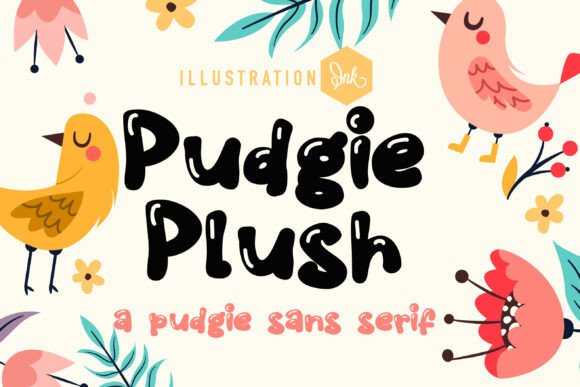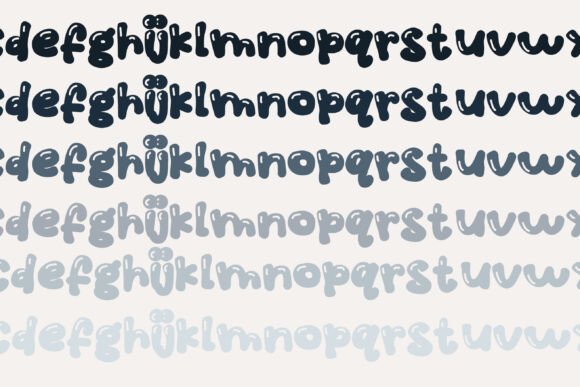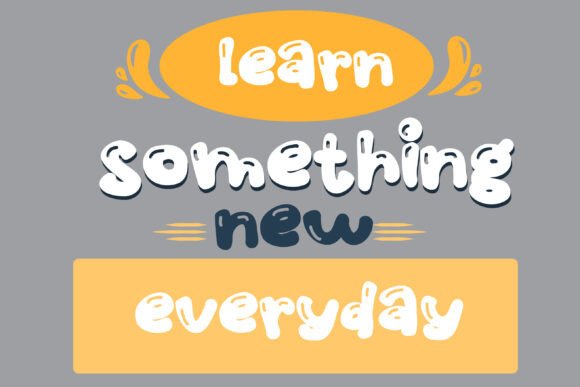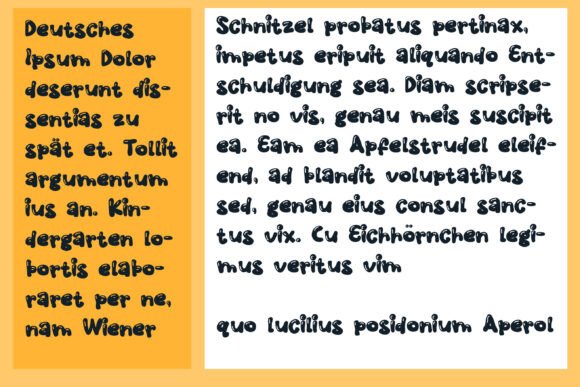
Pudgie Plush Font
About the Pudgie Plush Font
Step up your design game with Pudgie Plush Font, a font that exudes confidence and style. This hand-crafted font is a soft, rounded, crafty font with highlights throughout.
Pudgie Plush’s soft, rounded forms make it ideal for headlines, short text blocks on packaging, and branding elements where a friendly, approachable feel is desired. Its handcrafted charm works well in invitations and children’s projects. However, its low x-height and decorative elements make it unsuitable for body text or UI elements requiring high readability.
For effective pairings, consider a crisp sans-serif like Open Sans for body copy to provide contrast and legibility. Alternatively, a more playful, slightly geometric sans-serif such as Montserrat would maintain a lighthearted tone. Pairing with a simple serif like Lora could add a touch of sophistication for projects requiring a slightly more formal feel.
The overall personality of Pudgie Plush is undeniably playful and friendly, conveying warmth and approachability. It’s best suited to brands targeting young audiences or those focused on creating a welcoming, handcrafted aesthetic.
Pudgie Plush Font Usage Examples
Pudgie Plush Font Example